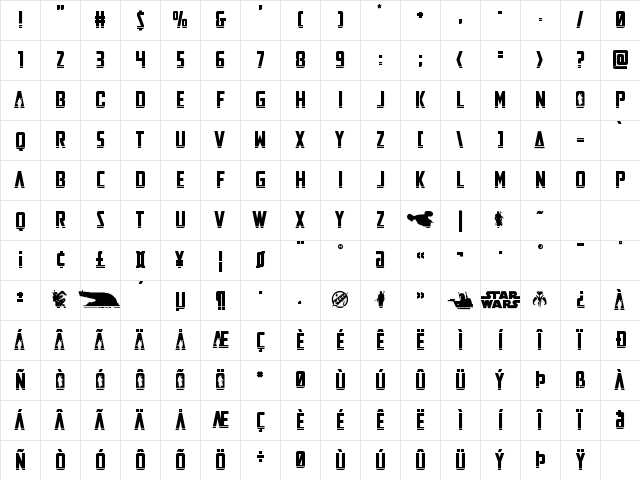
Mandalore Laser Regular Free Font
Mandalore Laser Regular
Design Context for Mandalore Laser
Mandalore Laser is a composed and adaptable typeface that performs quietly and consistently across a wide range of design contexts.